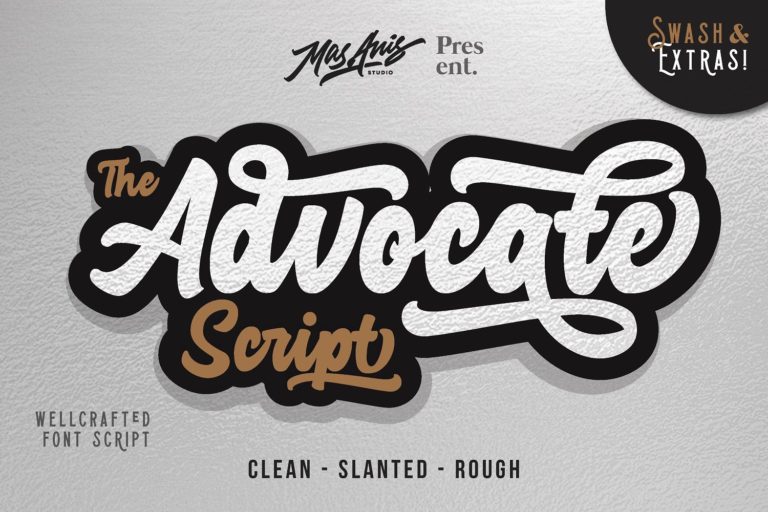
Advocate Script Font
If you are looking for a classic neat handlettering style, that’s it. Introducing Advocate Font. The Advocate is brand new simple bold script we made for you, with classic neat handlettering style, attractive swashes and alternates to make your designs work more easier. Ideal for logos, handwritten quotes, product packaging, header, poster, merchandise, social media & greeting cards.